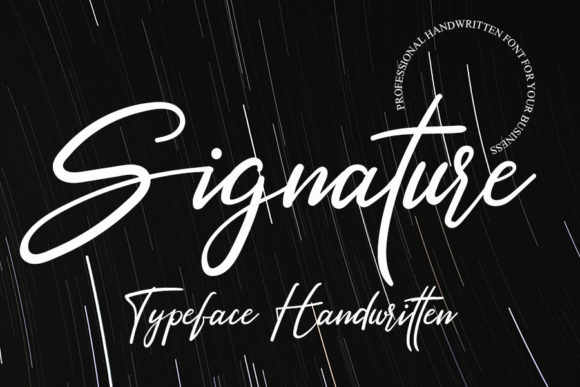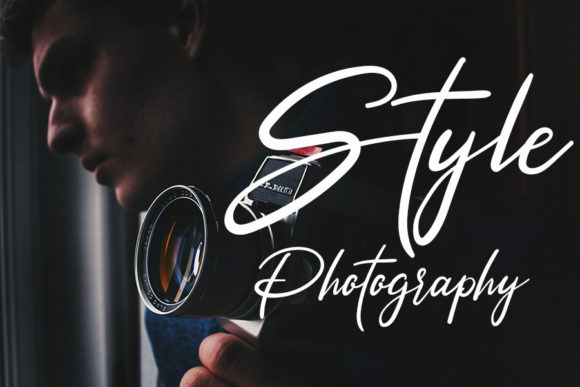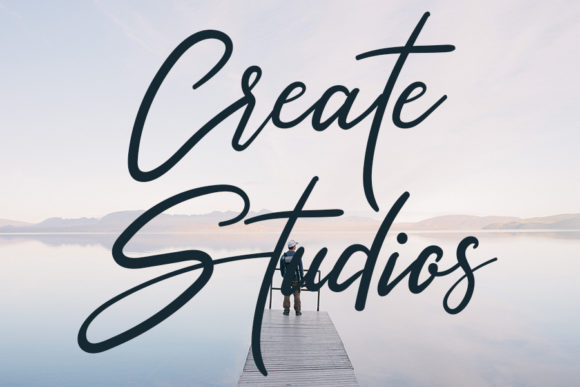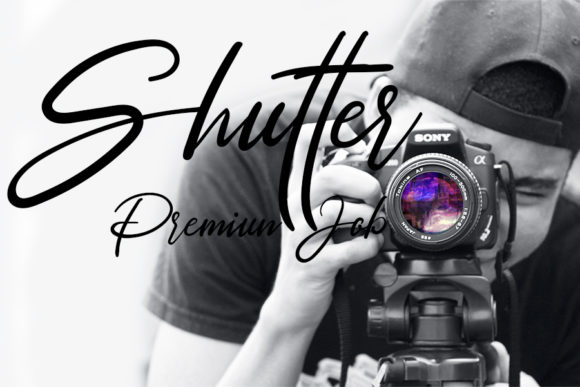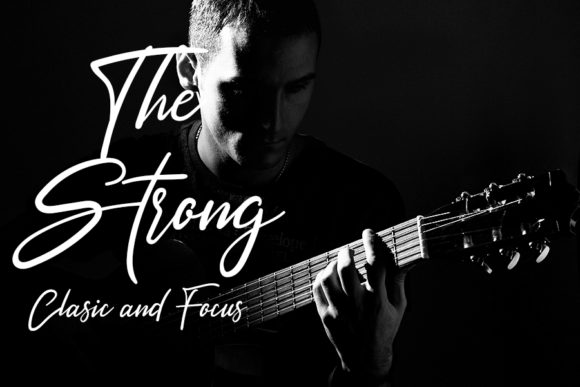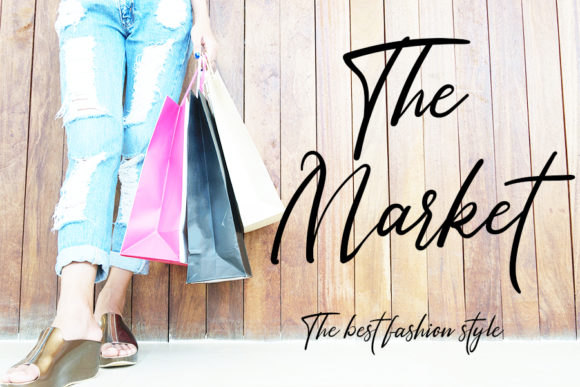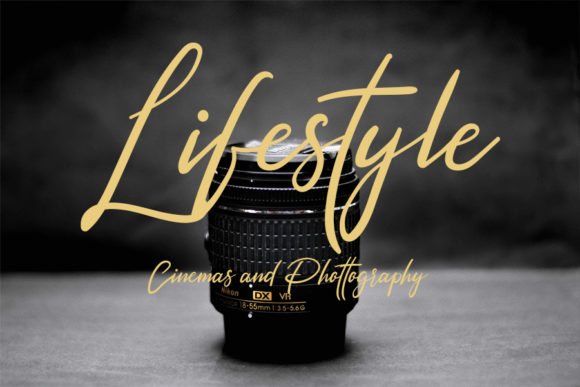
Signature is a casual and flowing handwritten font. Get inspired by its incredibly unique and versatile style and use it to create gorgeous wedding invitations, beautiful stationary art, eye-catching social media posts, and much more!